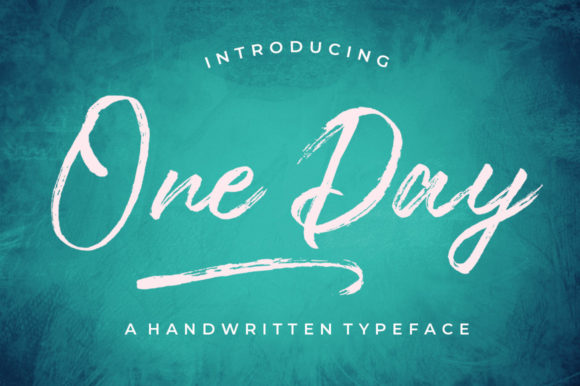
One Day Font
Prepare to embark on a typographic adventure with One Day Font, a captivating script font that will infuse your designs with a touch of elegance and uniqueness.
One Day Font is a modern masterpiece, meticulously crafted by the skilled hands of typehill, a renowned font foundry known for its exceptional artistry. This font family is a testament to their dedication to creating fonts that transcend the ordinary and ignite the imagination.
With its irregular baseline, One Day Font dances across your screen, adding a touch of playfulness and dynamism to your designs. Its striking swashes, like graceful brushstrokes, demand attention and make your words leap off the page. Whether you're crafting logos, branding materials, or eye-catching social media posts, One Day Font is your perfect companion.
Dive into the world of One Day Font and discover endless possibilities. Let your creativity soar as you explore its diverse range of applications. From wedding invitations that exude romance to posters that command attention, One Day Font is the perfect choice for adding a touch of sophistication and charm to your designs.
With One Day Font, you hold the power to transform ordinary words into extraordinary expressions. Its graceful curves and elegant lines will captivate your audience, leaving a lasting impression that lingers in their minds. Embrace the beauty of typography and unlock your creative potential with One Day Font.